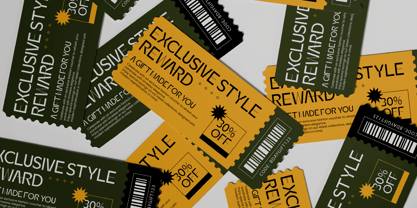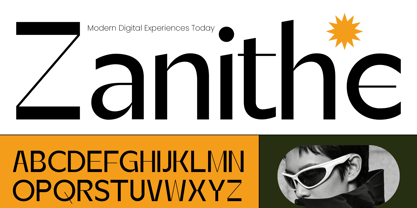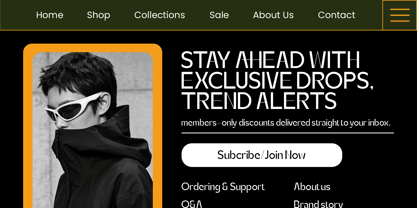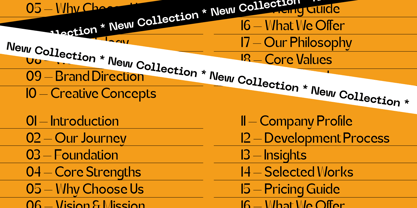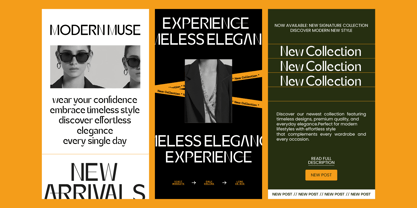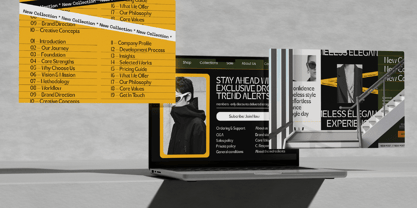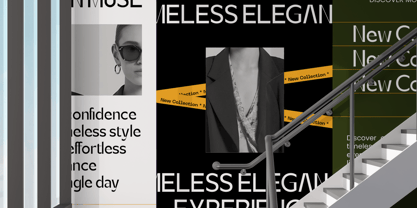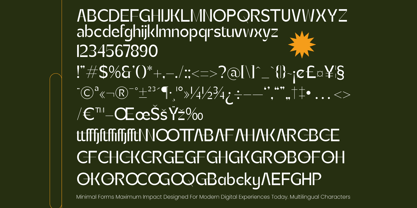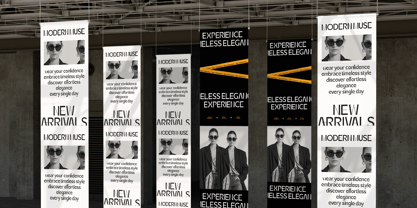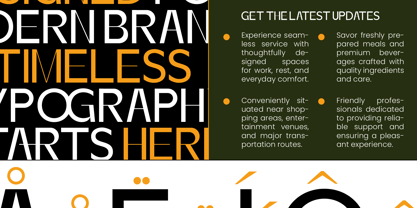
Zanithe
La famille de polices Zanithe a été conçue par Heru Utama Putra et publiée par Timelesstype Studio. Zanithe contient 2 styles et options de package familial. En savoir plus sur cette famille
Zanithe - Modern Geometric Sans Serif, a typeface that embodies contemporary elegance and architectural precision. This high-contrast sans serif blends minimalist geometric forms with a luxurious aesthetic, making it an essential tool for designers seeking a modern edge. The balance between its sharp angles and smooth curves ensures that Zanithe - Modern Geometric Sans Serif stands out as a premier display font for any forward-thinking brand.
Engineered for maximum impact, this typeface is the perfect choice for luxury branding, high-end fashion editorial, and premium packaging. Whether you are crafting a sleek logo or a sophisticated web layout, Zanithe - Modern Geometric Sans Serif provides the visual authority required for modern advertising and digital media. Its bold presence and clean lines make it ideal for editorial design where legibility and style must coexist seamlessly.